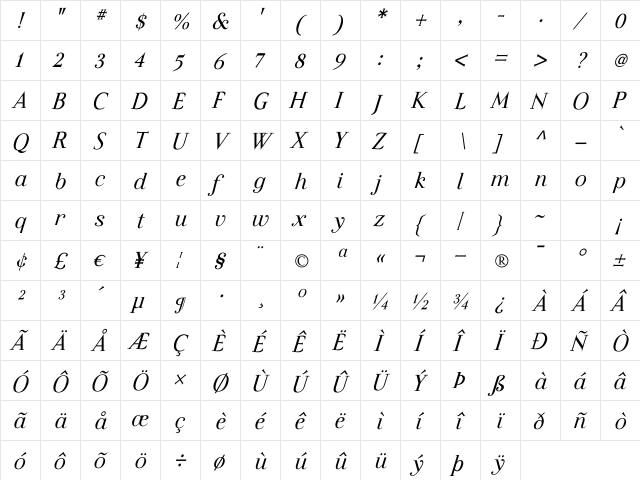
Felina SerifRegular Italic Regular
Design Context for Felina SerifRegular Italic Typeface
Felina SerifRegular Italic carries the refined structure of traditional serif typography, with bracketed terminals and considered proportions that communicate credibility and craft. The dynamic lean of this cut emphasises speed and emphasis in any layout.